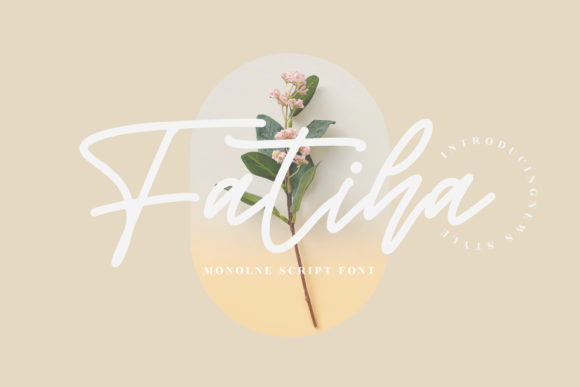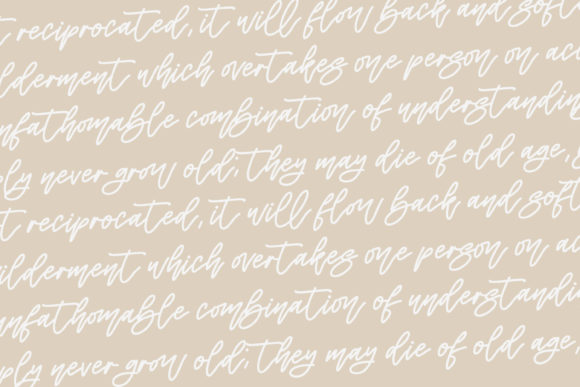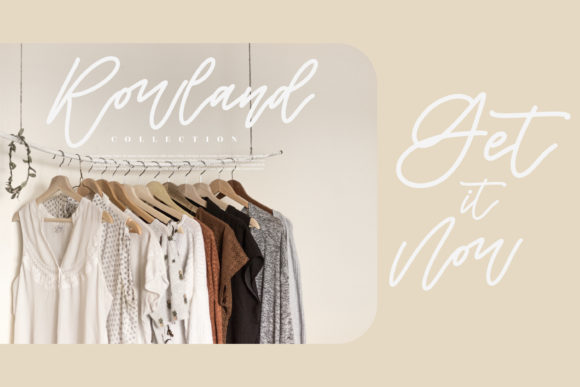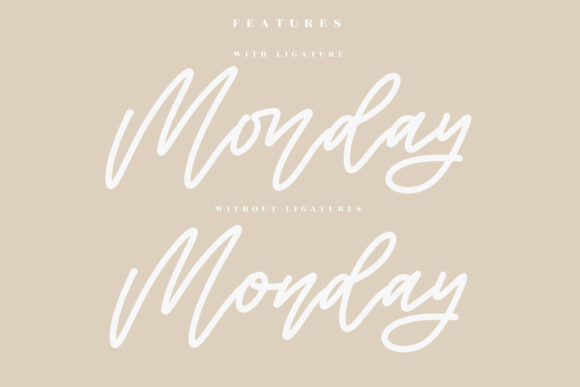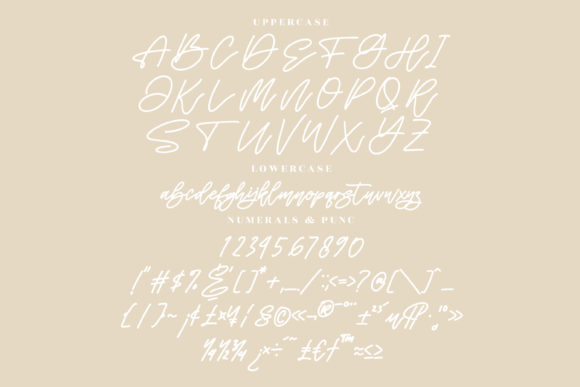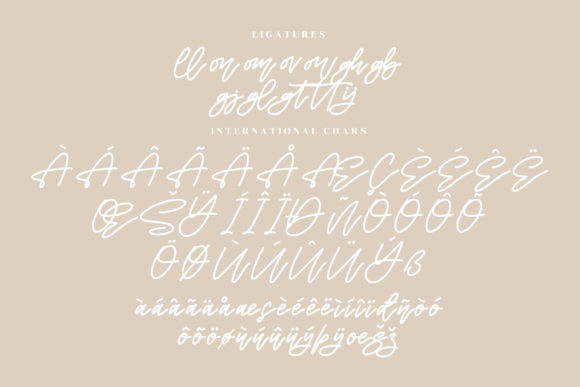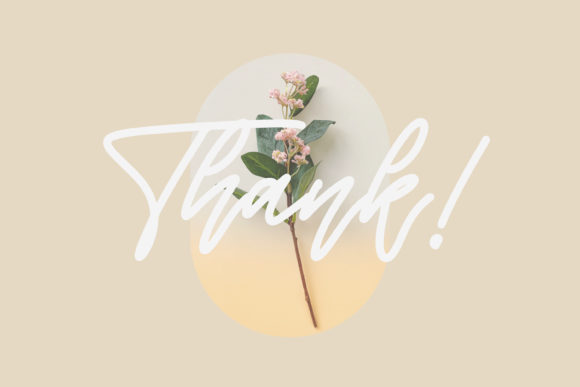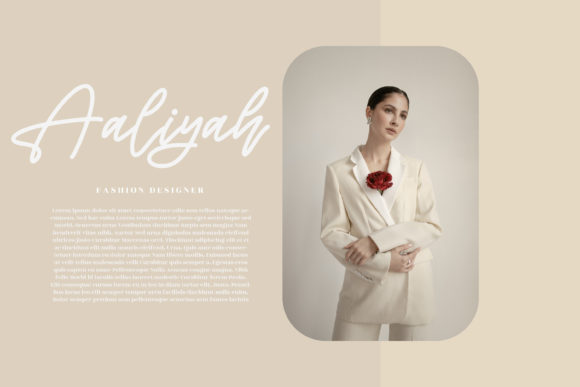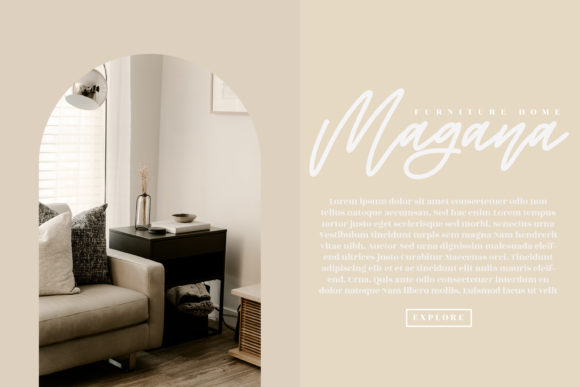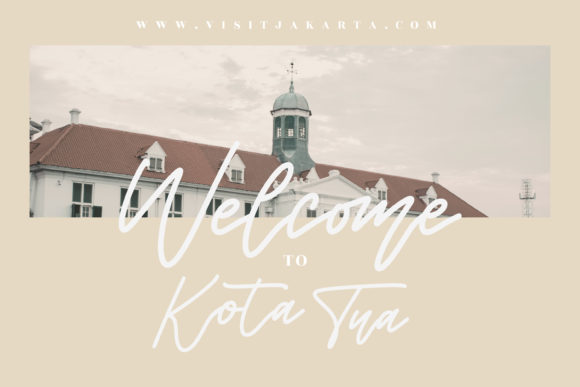
Fatiha Font
About Fatiha Font
Fatiha is a beautiful and flowing handwritten font. This versatility will appeal to a wide range of crafty ideas, from letterheads and titles, to stationery.